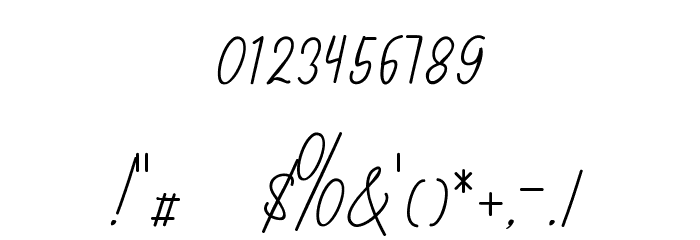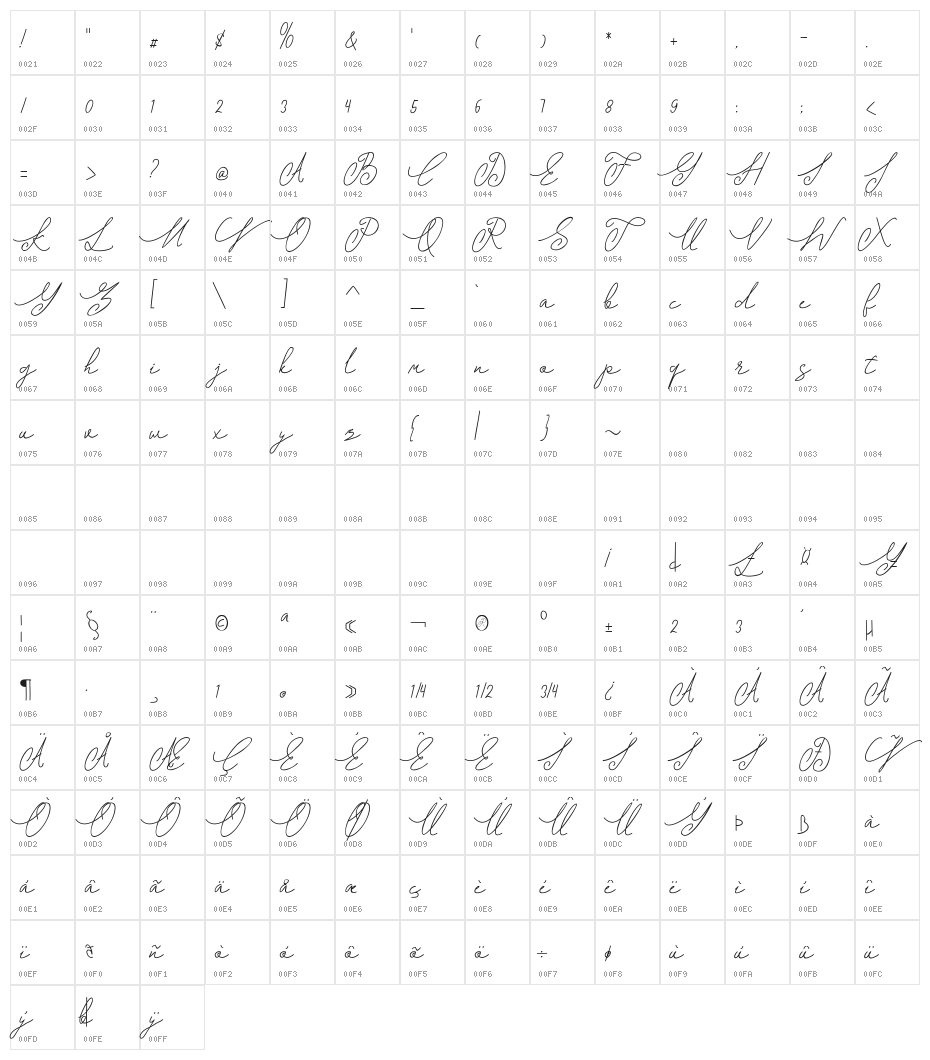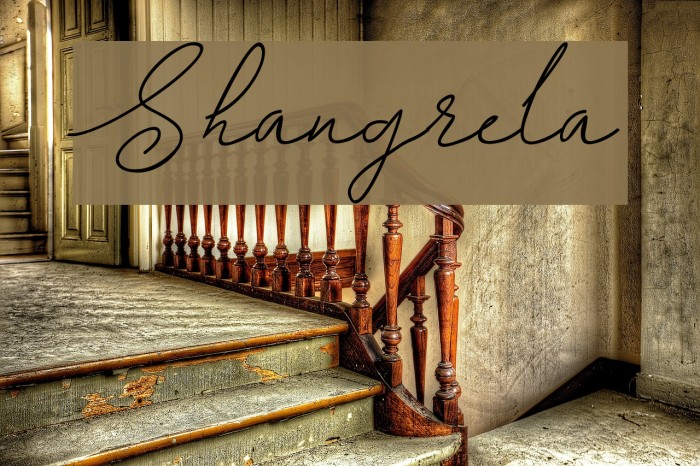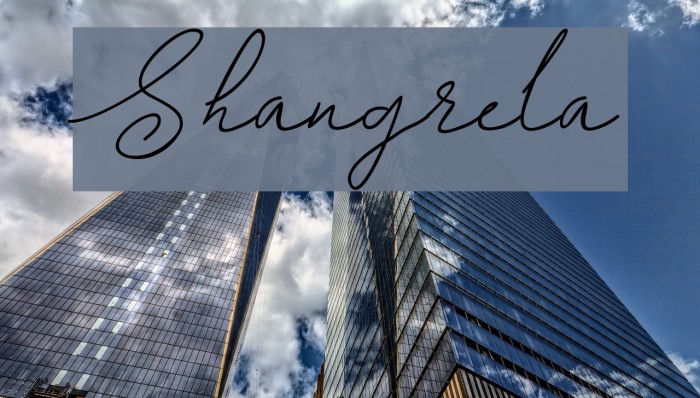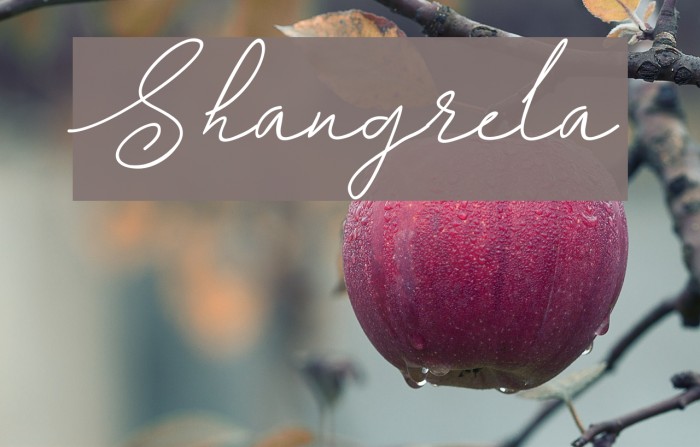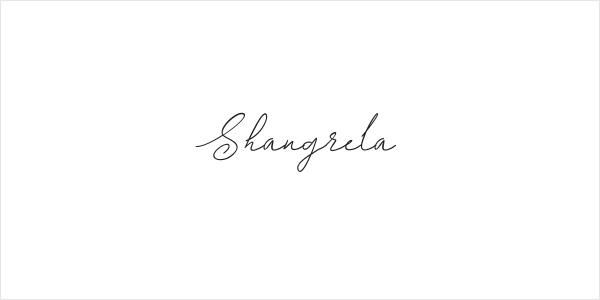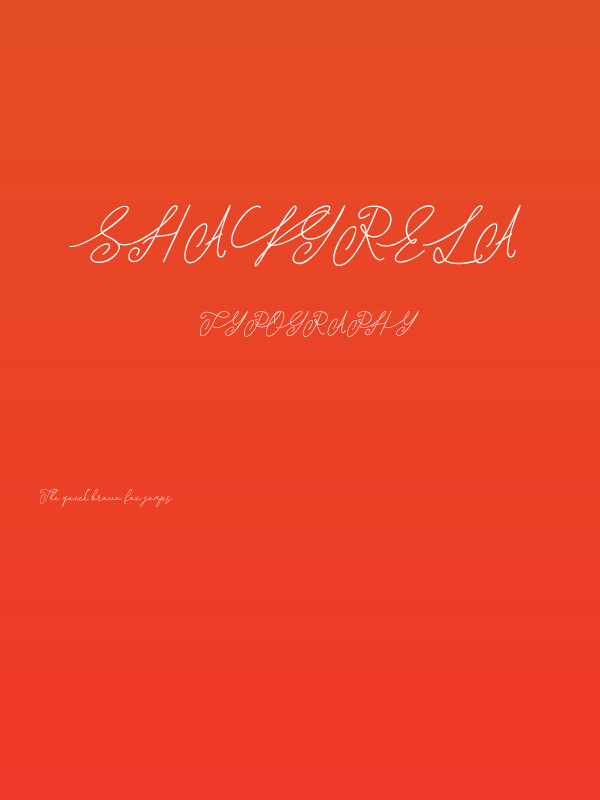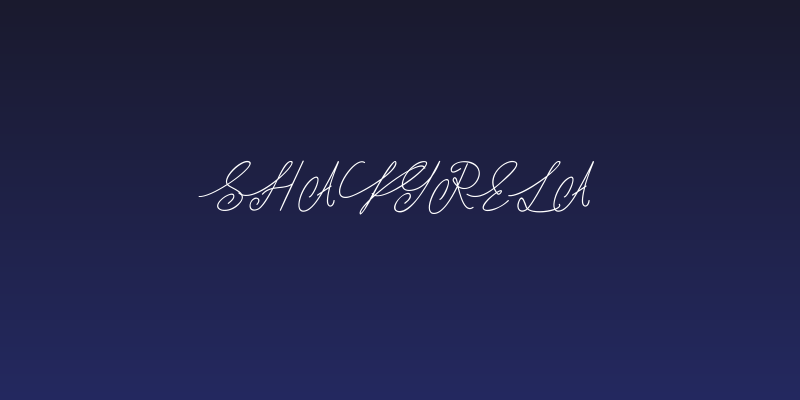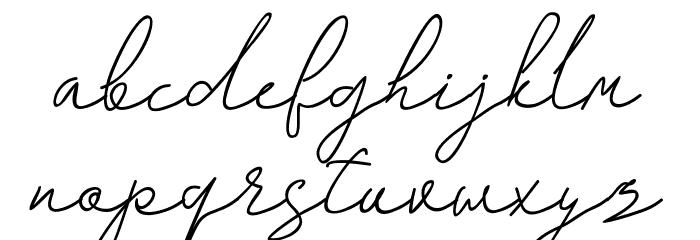
Shangrela Font
Shangrela Description
This elegant script font features fluid, interconnected strokes that mimic the natural flow of handwriting. The uppercase letters are characterized by their graceful loops and swirls, adding a touch of sophistication and charm. The lowercase letters maintain a consistent style, with smooth curves and a slight slant, enhancing the handwritten feel. The numerals are clear and legible, maintaining the overall aesthetic of the font. Special characters are thoughtfully designed to complement the script style, making this font versatile for various design needs.
| Proposed Projects | Ideal for wedding invitations, greeting cards, branding projects, and elegant packaging designs. |